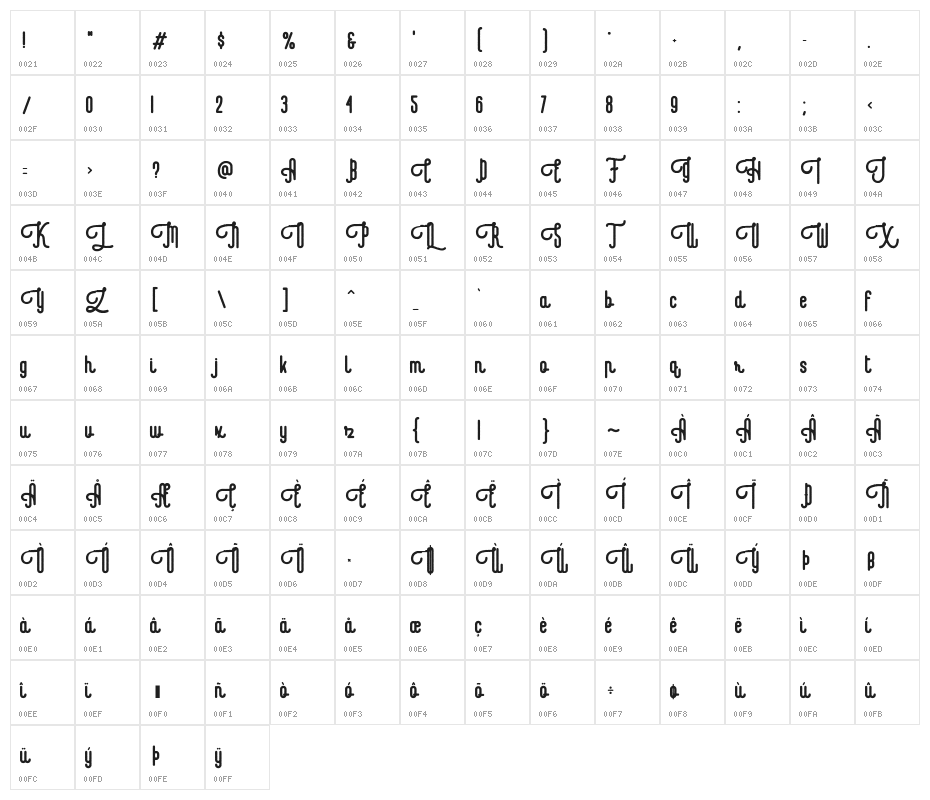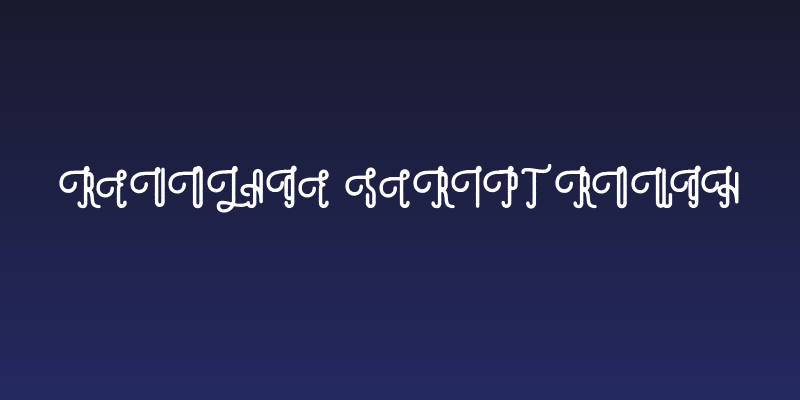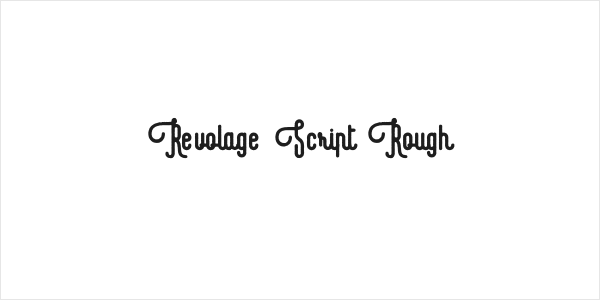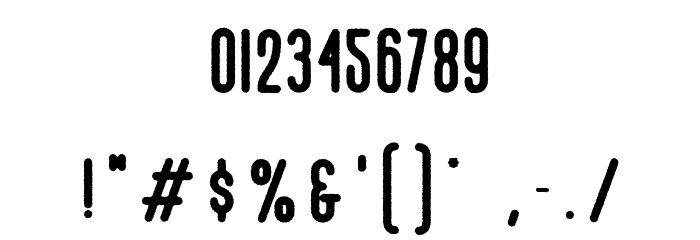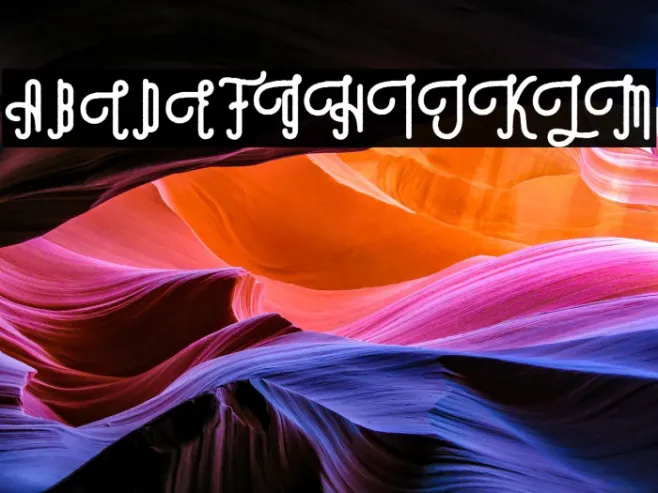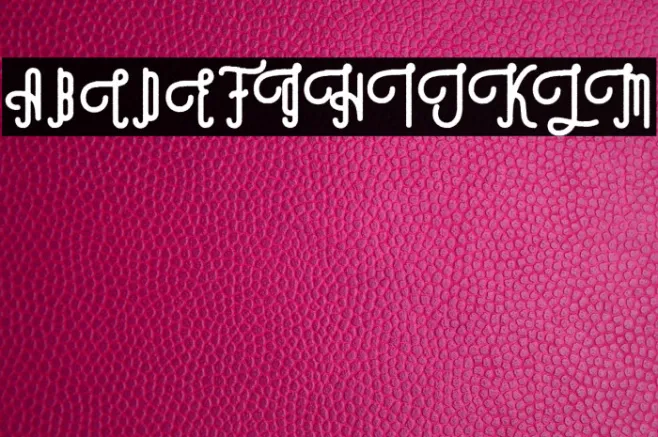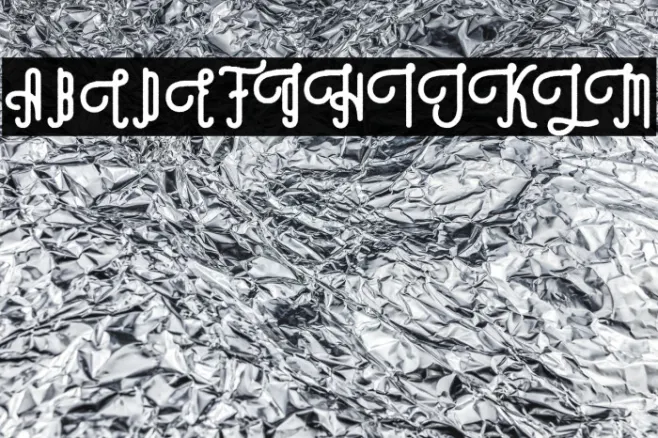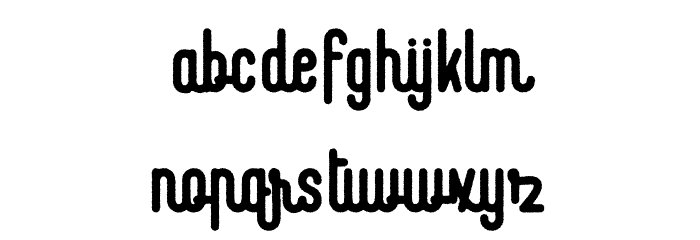
Revolage Script Rough Font
Revolage Script Rough Description
This font features a playful and artistic script style with a rough texture that gives it a hand-drawn appearance. The uppercase letters are characterized by their unique loops and curves, creating a whimsical and decorative look. The lowercase letters maintain a consistent flow, enhancing the script's fluidity. Numbers and special characters are designed to match the overall style, adding to its cohesive appearance. The rough texture adds an organic feel, making it suitable for projects that require a personal touch.
| Proposed Projects | Ideal for greeting cards, invitations, branding projects, and artistic posters. |